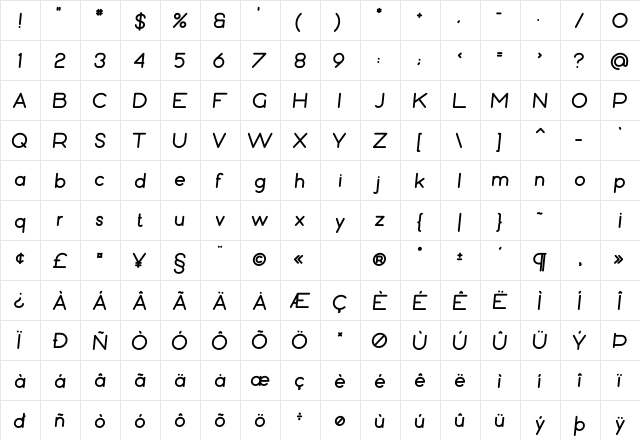
Bubbble Gum Italic Bold Font Preview
Bubbble Gum Italic Bold
Design Context for Bubbble Gum Typeface
Bubbble Gum offers clean, dependable letterforms without strong stylistic allegiance, making it a practical choice for designers who need flexibility. The slanted form adds forward momentum and visual energy. Its bold stroke weight gives it real presence on the page.